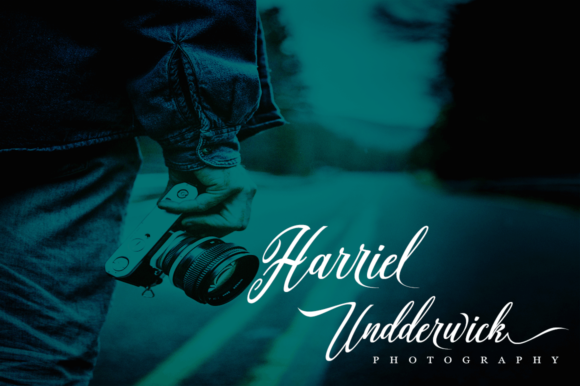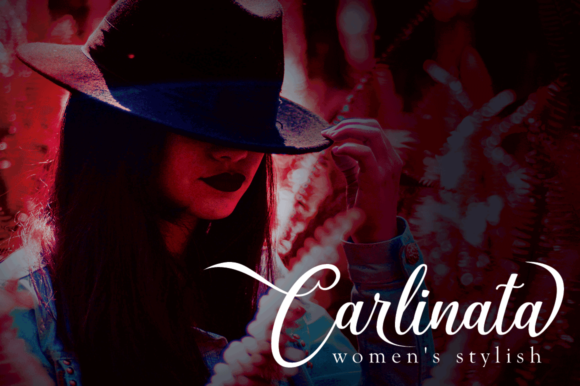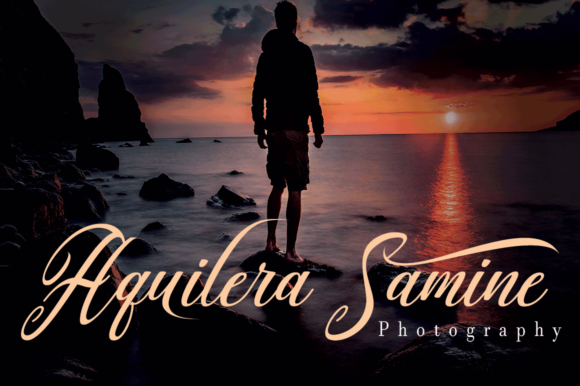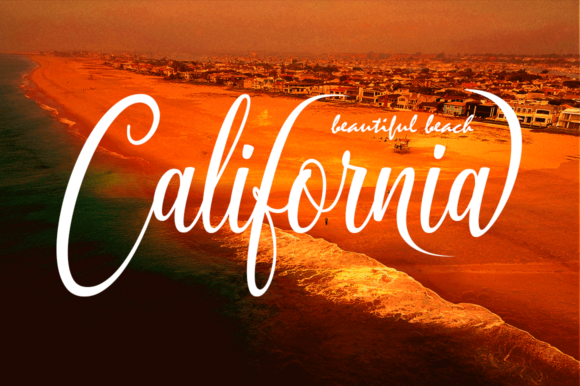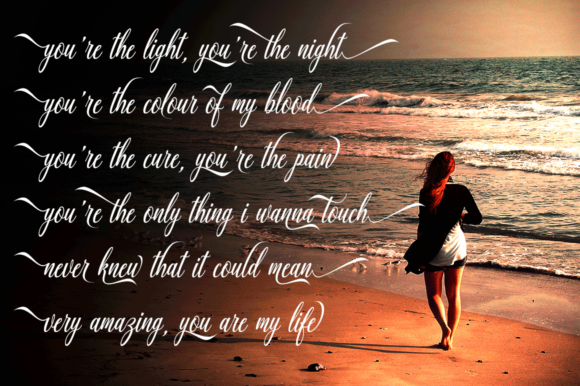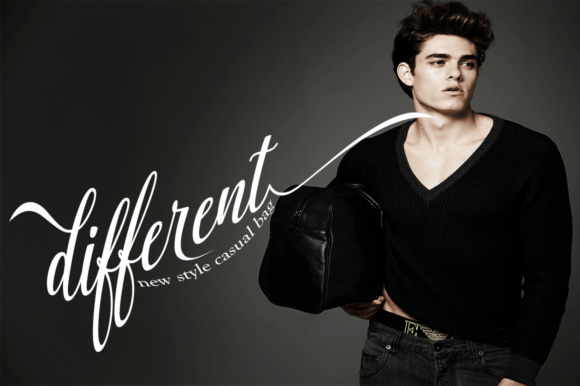
Introducing the Elegant Graf Call Script Font
The Graf Call script font is a stunning addition to the world of typography, offering a beautiful and stylish solution for designers and crafters looking to elevate their projects. With its modern and elegant style, this font is perfect for a wide range of applications, from labels and posters to letterheads, badges, and more.
What Makes Graf Call Script Font Special?
The Graf Call script font stands out from the crowd with its unique blend of sophistication and playfulness. Its elegant lines and curves make it an excellent choice for projects that require a touch of refinement and luxury. Whether you’re working on a branding project, creating eye-catching posters, or designing custom labels, the Graf Call script font is sure to impress.
Key Features of Graf Call Script Font
- Modern and Elegant Style: The Graf Call script font boasts a contemporary and sophisticated aesthetic that will add a touch of class to any project.
- Versatile: This font is perfect for a wide range of applications, including labels, posters, letterheads, badges, and more.
- Easy to Read: Despite its elegant style, the Graf Call script font remains highly legible, making it suitable for both headlines and body text.
- Unique Character Set: The font features a unique character set, including uppercase and lowercase letters, numbers, and punctuation marks.
Use Cases for Graf Call Script Font
The Graf Call script font is incredibly versatile and can be used in a variety of contexts. Here are some ideas to get you started:
- Branding and Logo Design: Create a lasting impression with a custom logo or brand identity that incorporates the Graf Call script font.
- Posters and Flyers: Add a touch of elegance to your promotional materials with this beautiful script font.
- Labels and Packaging: Elevate your product labels and packaging with a sophisticated and modern font.
- Letterheads and Stationery: Create a professional and polished look for your business correspondence.
- Badges and Certificates: Add a touch of prestige to your awards, certificates, and badges.
Tips for Using Graf Call Script Font
To get the most out of the Graf Call script font, here are some tips to keep in mind:
- Pair with a Sans-Serif Font: Combine the Graf Call script font with a clean sans-serif font for a striking contrast.
- Experiment with Font Sizes: Play around with different font sizes to create visual hierarchy and emphasis.
- Use it Sparingly: While the Graf Call script font is beautiful, it’s best used in moderation to avoid overwhelming the reader.
The Graf Call script font is a stunning addition to any designer’s toolkit. Its modern and elegant style makes it perfect for a wide range of applications, from labels and posters to letterheads and badges. With its unique character set, ease of use, and versatility, this font is sure to elevate your projects and leave a lasting impression.
Get Creative with Graf Call Script Font